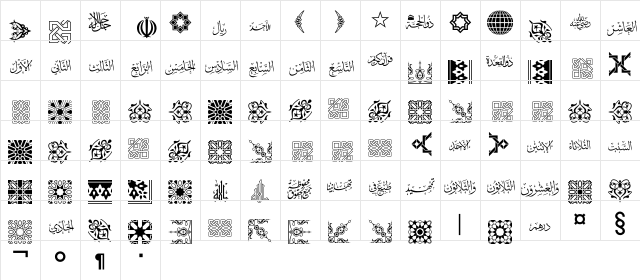
AlFars 16 Islamic Symbols Regular Free Font
AlFars 16 Islamic Symbols Regular
Designer: Syed Irtiza Hassan Rizvi
Design Context for AlFars 16 Islamic Symbols
AlFars 16 Islamic Symbols is a composed and adaptable typeface that performs quietly and consistently across a wide range of design contexts.